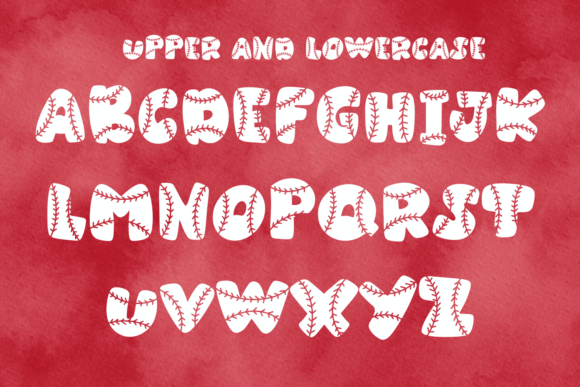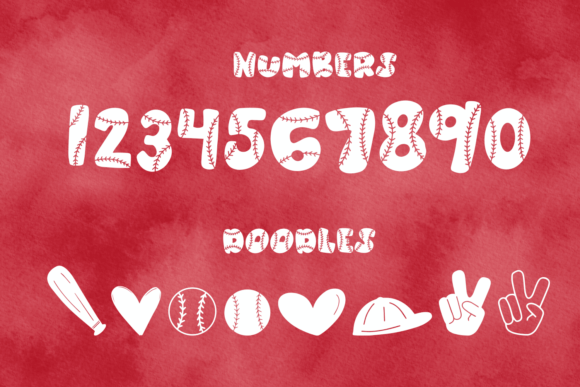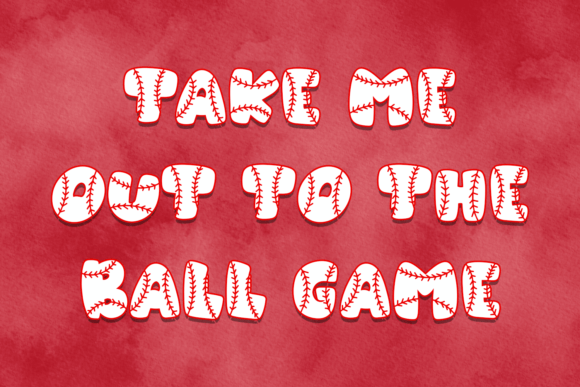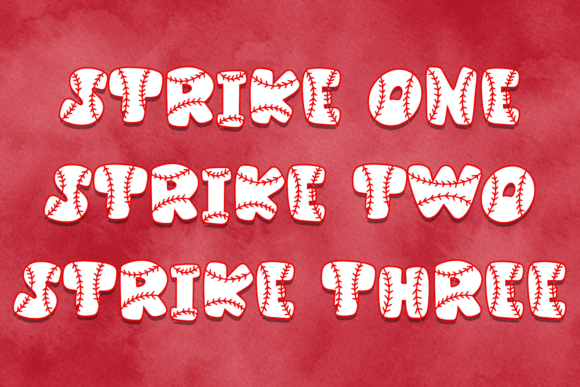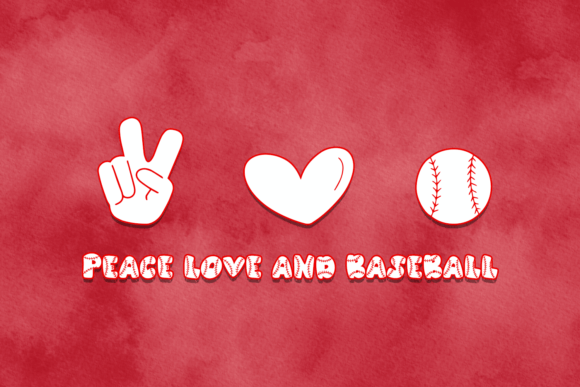
Introducing Baseball Bats Font: The Perfect Playful Display Font for Your Design Projects
Are you looking for a font that can add a touch of fun and whimsy to your design projects? Look no further than Baseball Bats Font! This playful and cheerful display font is perfect for designers and crafters who want to create engaging and delightful designs for children’s books, playful packaging, social media graphics, and more.
The Characteristics of Baseball Bats Font
Baseball Bats Font is a unique and eye-catching font that features rounded shapes, bouncy curves, and playful letterforms. Its distinctive design elements evoke a sense of whimsy and delight, making it an ideal choice for designs that require a playful and cheerful touch. The font’s rounded edges and smooth curves give it a friendly and approachable feel, while its bold and chunky letterforms make it perfect for headlines and titles.
Perfect for Children’s Books and Playful Packaging
Baseball Bats Font is particularly well-suited for children’s books and playful packaging. Its playful and cheerful design makes it perfect for creating engaging and interactive designs that will appeal to kids and parents alike. Whether you’re designing a children’s book, a toy package, or a kids’ party invitation, Baseball Bats Font is sure to add a touch of fun and whimsy to your design.
Ideal for Social Media Graphics and More
But Baseball Bats Font isn’t just limited to children’s books and playful packaging. Its versatility and playfulness make it an ideal choice for a wide range of design projects, including social media graphics, posters, flyers, and more. Whether you’re designing a social media post, a poster, or a flyer, Baseball Bats Font is sure to add a touch of personality and whimsy to your design.
Key Features of Baseball Bats Font
• Playful and cheerful design
• Rounded shapes and bouncy curves
• Bold and chunky letterforms
• Perfect for children’s books and playful packaging
• Ideal for social media graphics, posters, flyers, and more
• Easy to read and understand
Why Choose Baseball Bats Font?
There are many reasons why Baseball Bats Font is a great choice for your design projects. Here are just a few:
• Unique and eye-catching design: Baseball Bats Font has a distinctive design that will set your designs apart from the crowd.
• Playful and cheerful feel: The font’s playful and cheerful design makes it perfect for designs that require a fun and whimsical touch.
• Versatile: Baseball Bats Font can be used for a wide range of design projects, from children’s books to social media graphics.
• Easy to read and understand: Despite its playful design, Baseball Bats Font is easy to read and understand, making it perfect for designs that require a clear and concise message.
Tips for Using Baseball Bats Font
Here are a few tips for using Baseball Bats Font in your design projects:
• Use it for headlines and titles: Baseball Bats Font is perfect for headlines and titles, where its bold and chunky letterforms can really make an impact.
• Pair it with a simple font: To create visual interest and hierarchy, pair Baseball Bats Font with a simple font for body text.
• Experiment with colors and textures: Baseball Bats Font looks great in a variety of colors and textures, so don’t be afraid to experiment and find the perfect combination for your design.
Baseball Bats Font is a playful and cheerful display font that’s perfect for adding a touch of fun to any design project. Its unique and eye-catching design, playful and cheerful feel, and versatility make it an ideal choice for designers and crafters who want to create engaging and delightful designs. Whether you’re designing a children’s book, playful packaging, or social media graphics, Baseball Bats Font is sure to be a home run!